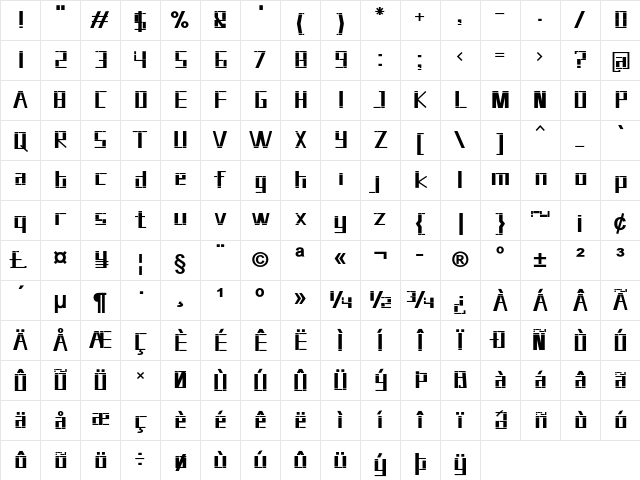
Longhurst Bold
Longhurst Family
Longhurst Bold
Design Context for Longhurst
Longhurst is a composed and adaptable typeface that performs quietly and consistently across a wide range of design contexts. Its bold stroke weight gives it real presence on the page.